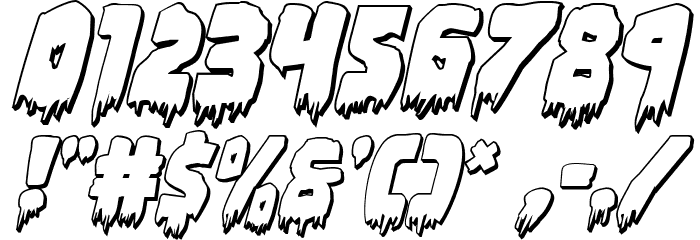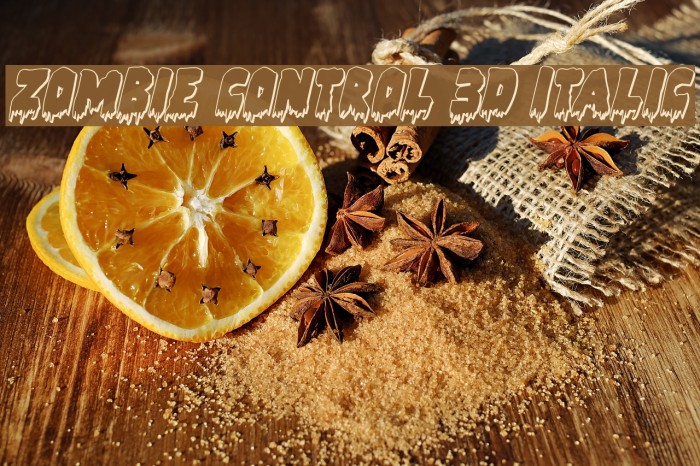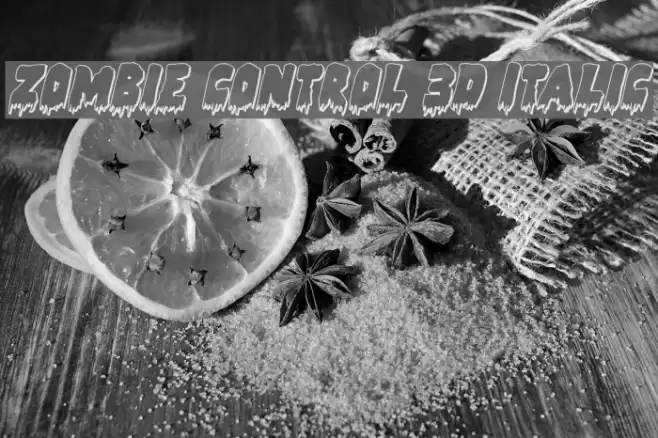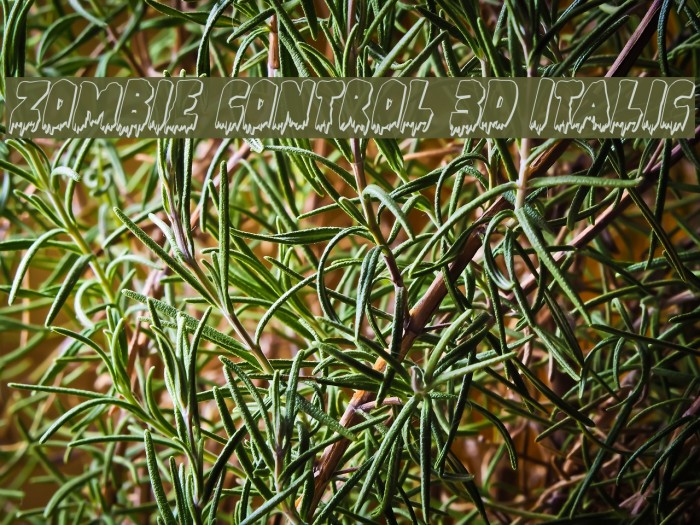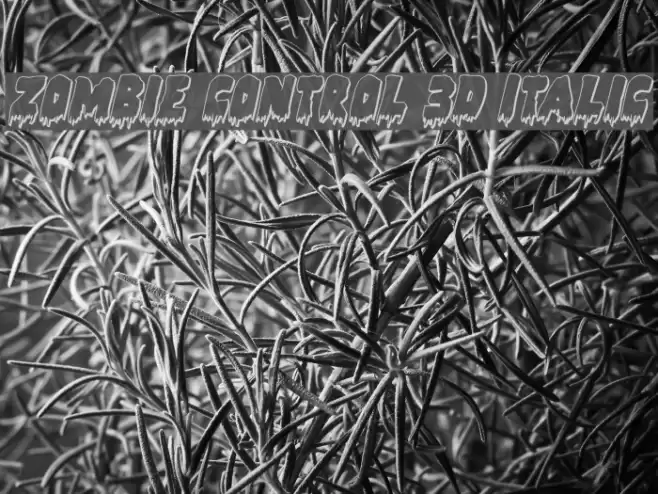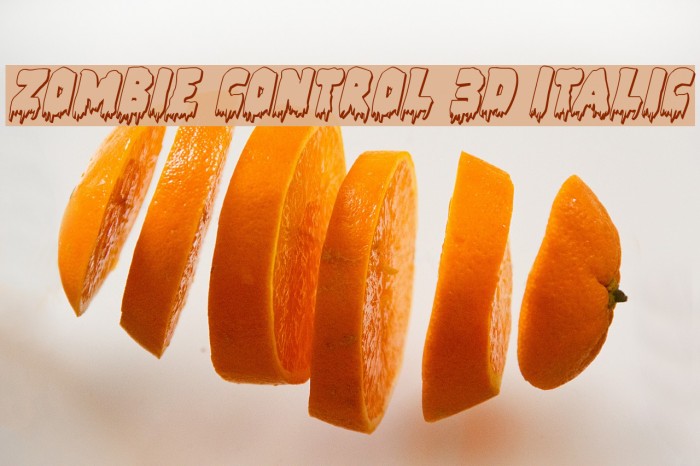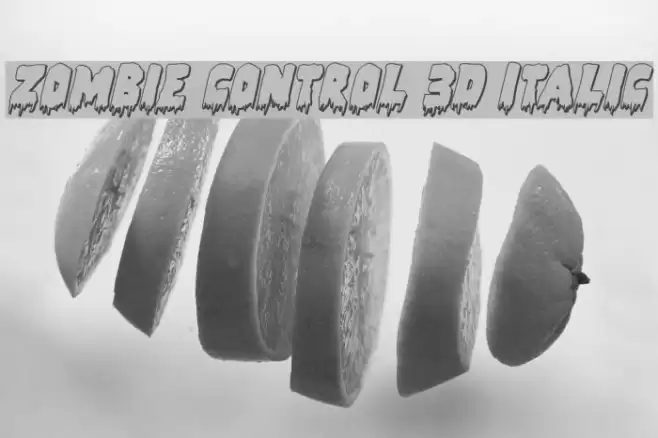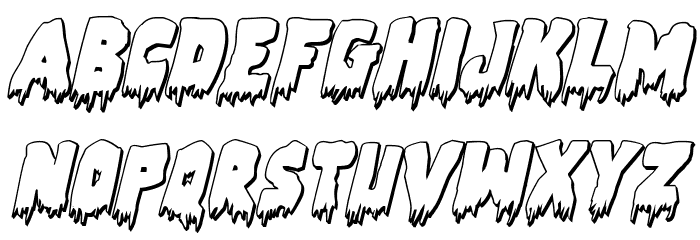
Zombie Control 3D Italic Font
Zombie Control 3D Italic Description
This font features a bold, dripping design that evokes a sense of horror and playfulness, reminiscent of classic zombie or horror movie posters. The characters have a three-dimensional appearance with a shadow effect that enhances the dripping motif. Each letter and number appears as if it's melting or oozing, creating a dynamic and eye-catching effect. The uppercase and lowercase letters maintain a consistent style, with exaggerated serifs that contribute to the overall eerie aesthetic. The special characters are equally stylized, ensuring a cohesive look across all glyphs. This font is perfect for Halloween-themed projects or any design that requires a spooky, dramatic flair.
| Proposed Projects | Ideal for Halloween invitations, horror movie posters, themed party decorations, and spooky merchandise designs. |